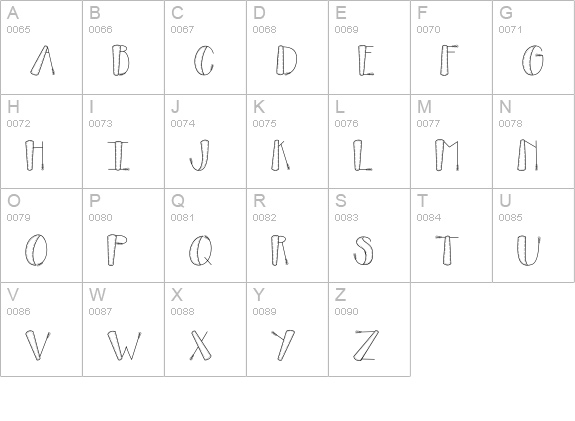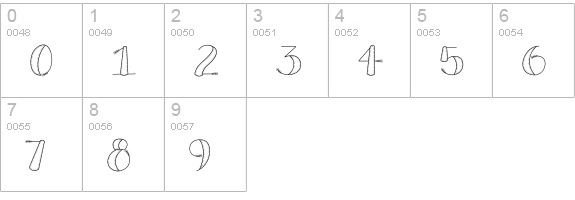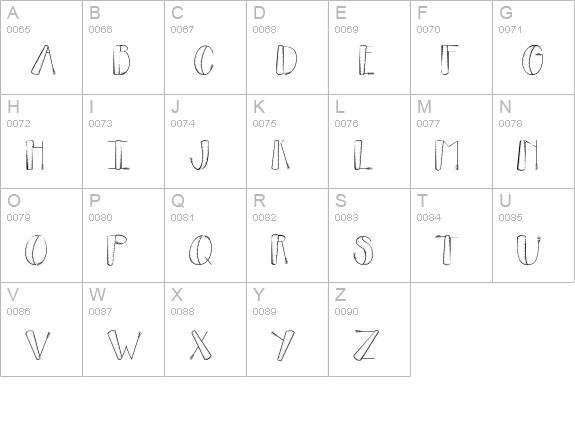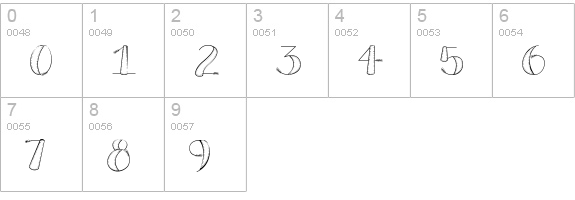
CK Delight Font Details
Introducing CK Delight font, a whimsical and charming typeface perfect for adding a touch of playfulness to your designs. This delightful font features a unique combination of rounded edges and flowing lines, creating a sense of warmth and friendliness. The CK Delight font is versatile and works well for a variety of projects, from greeting cards to branding and beyond. The best part? CK Delight font is completely free to download at FontsMarket.com. Embrace the joy and creativity that this font brings to your projects without any cost. Whether you're creating invitations, posters, or social media graphics, CK Delight font will surely bring a smile to your audience's face with its cheerful and inviting appearance. Don't miss out on the opportunity to enhance your designs with this charming and free CK Delight font. Download it today and let your creativity shine!